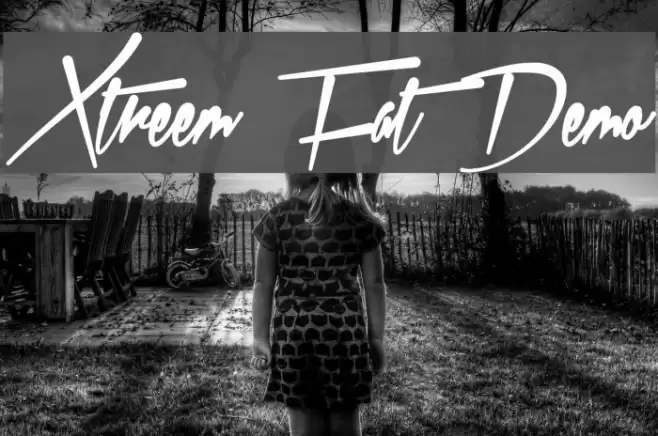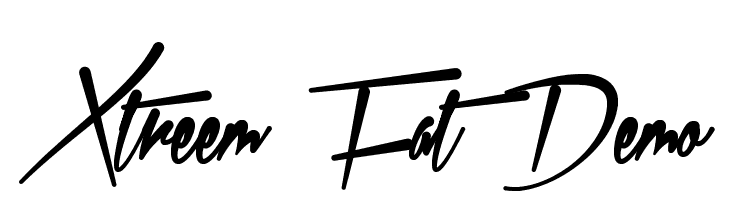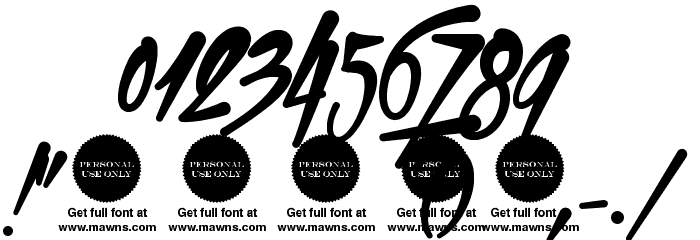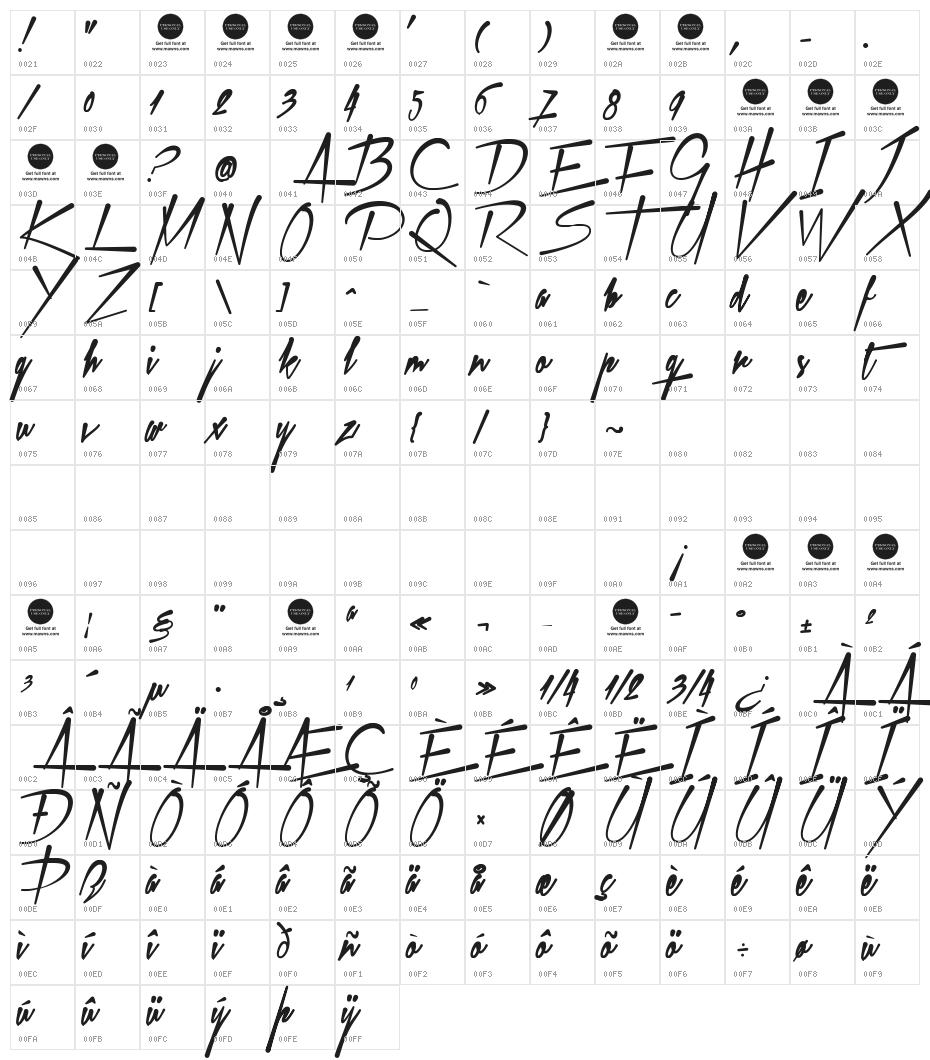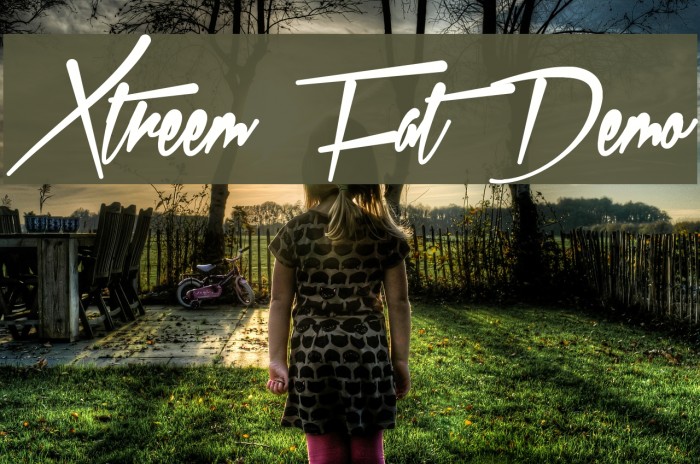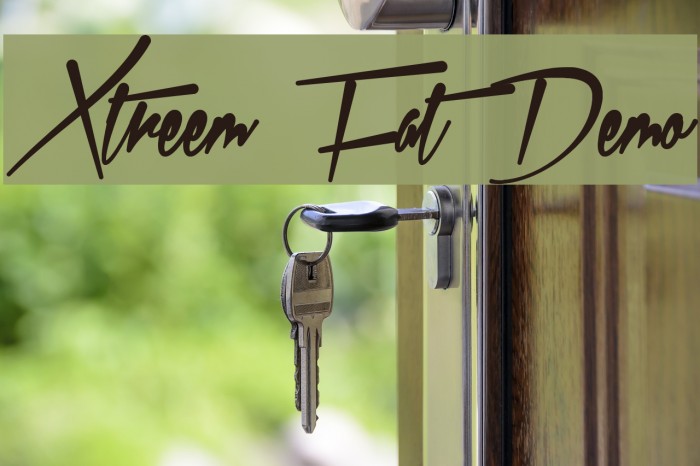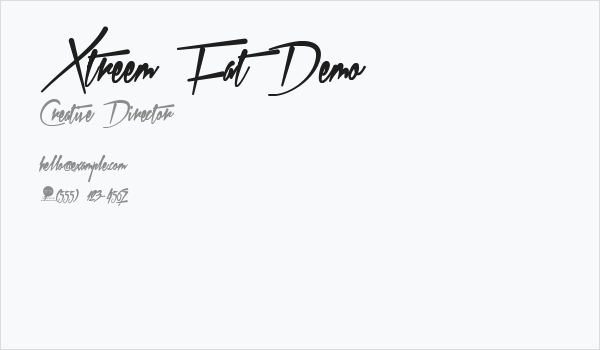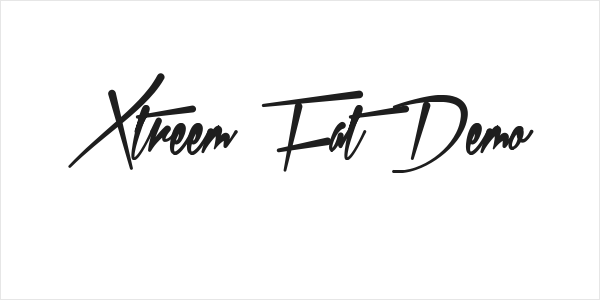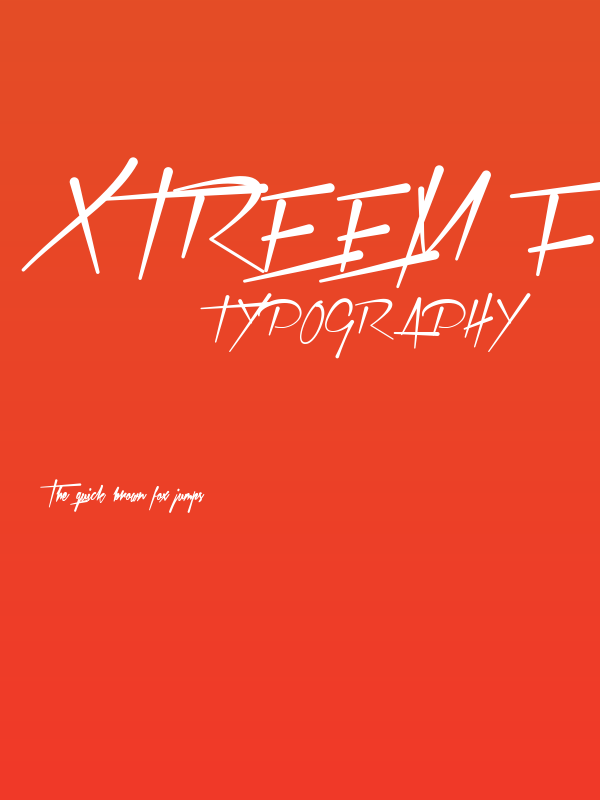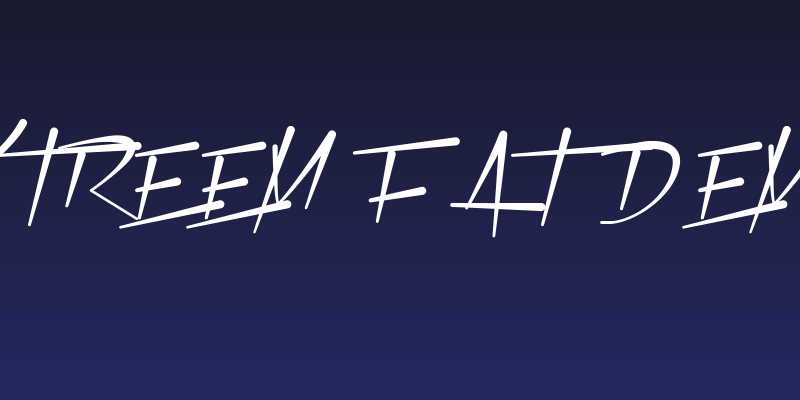
Xtreem Fat Demo Font
Xtreem Fat Demo Description
This font features a dynamic and energetic script style with a handwritten appearance. The uppercase letters are slightly slanted and connected, giving a sense of movement and fluidity. The lowercase letters are bold and expressive, with varying stroke widths that add a lively character to the text. The numerals are consistent with the overall style, maintaining the same energetic flow. Special characters are included, complementing the font's playful and informal nature. This font is ideal for projects that require a personal touch or a sense of spontaneity.
A dynamic, handwritten script font with bold, expressive strokes from Uncategorized fonts.
- Proposed Projects: Ideal for branding, invitations, posters, and any design requiring a personal, energetic touch.
- Overall Style: Modern, Decorative